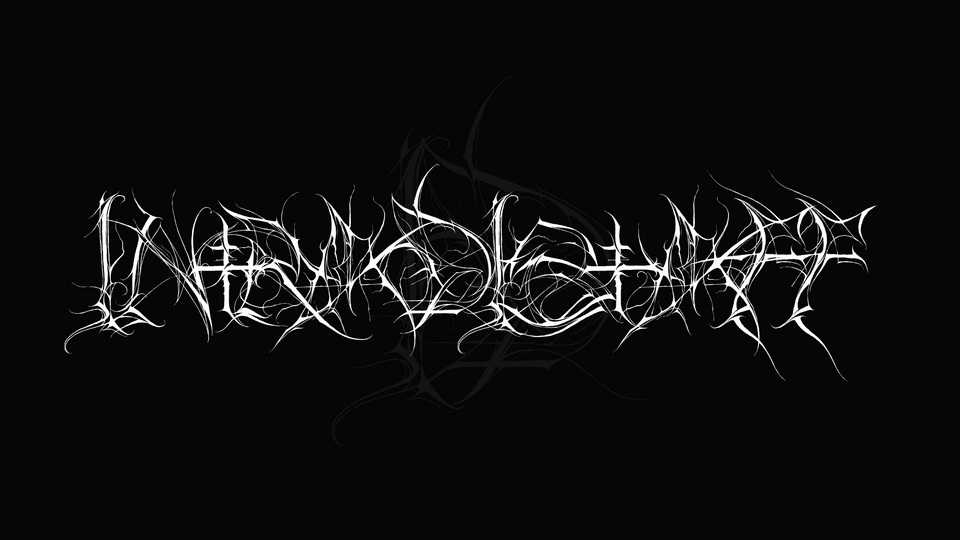
Download Intradistaff font, a typeface that delves into the mystic and the arcane with its intricate blackletter script. Intradistaff font is ideal for designs that require a sense of dark, gothic sophistication.
Designer: Victor Tkachenko